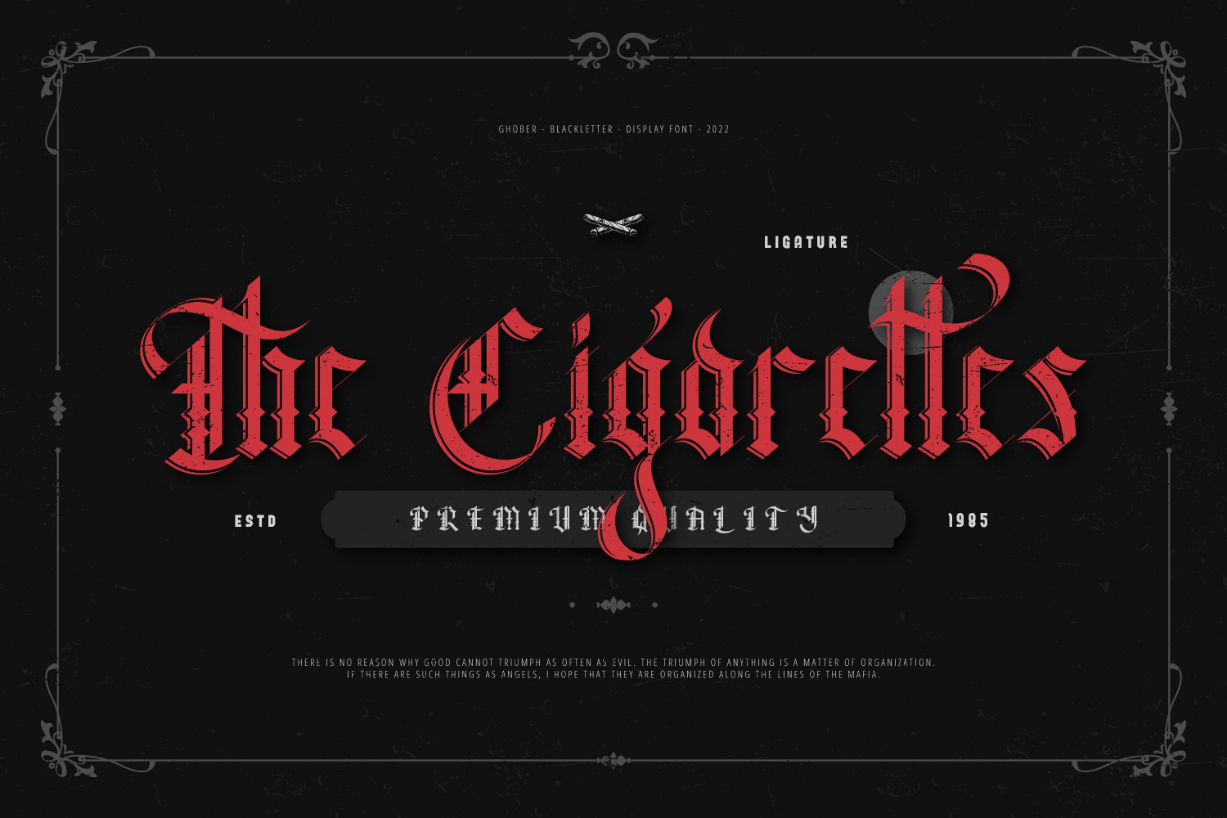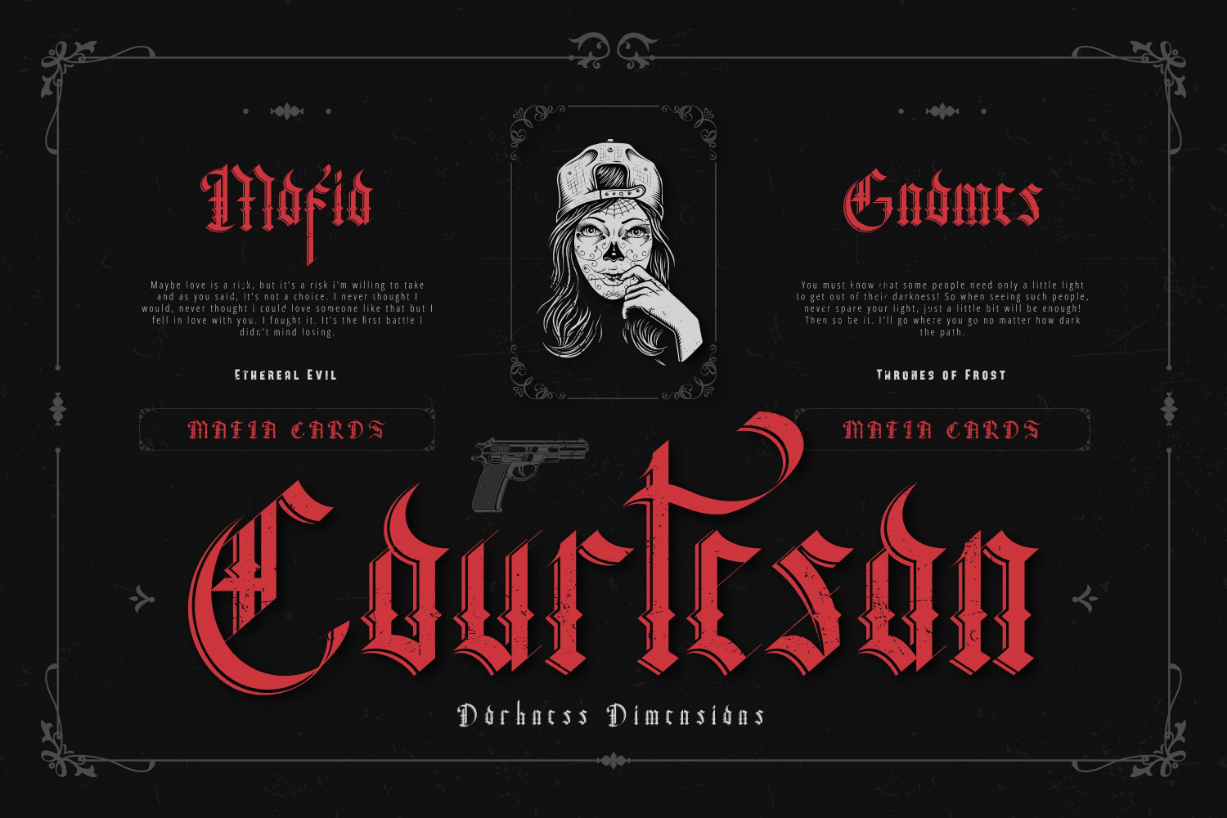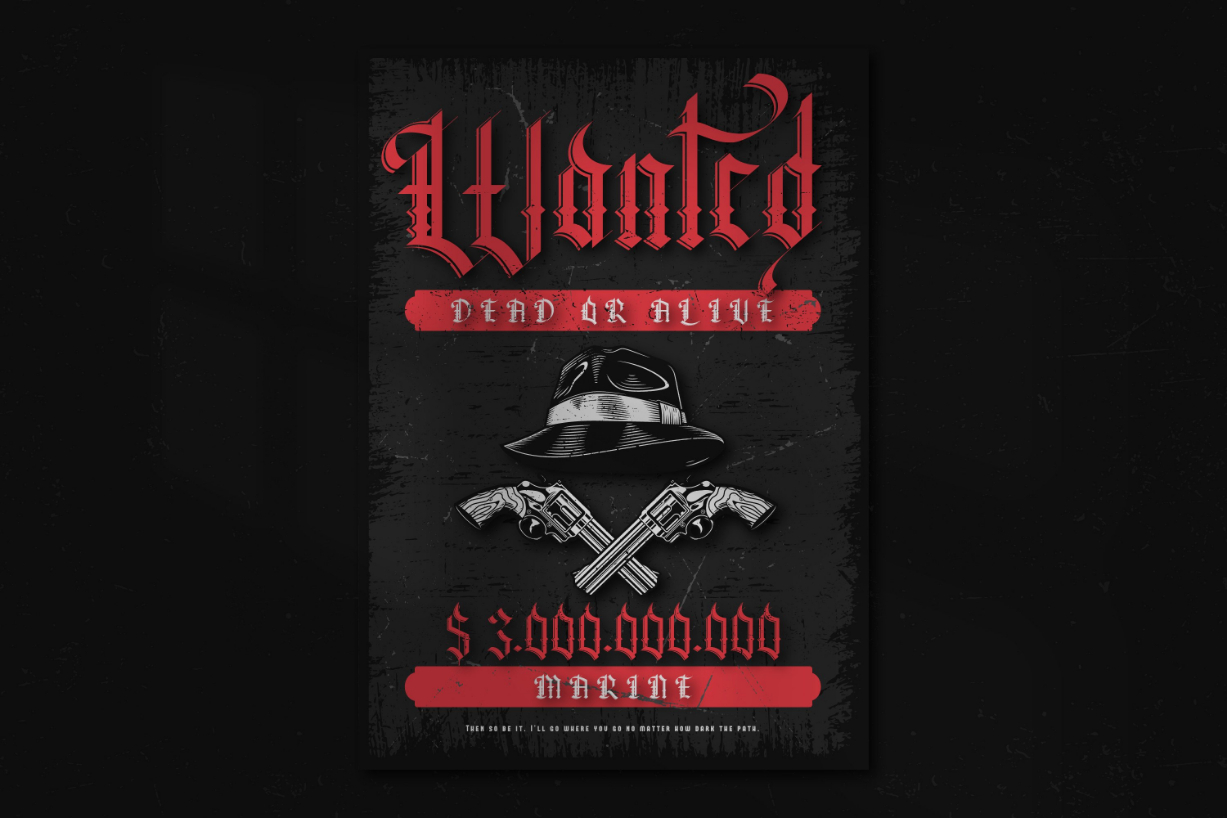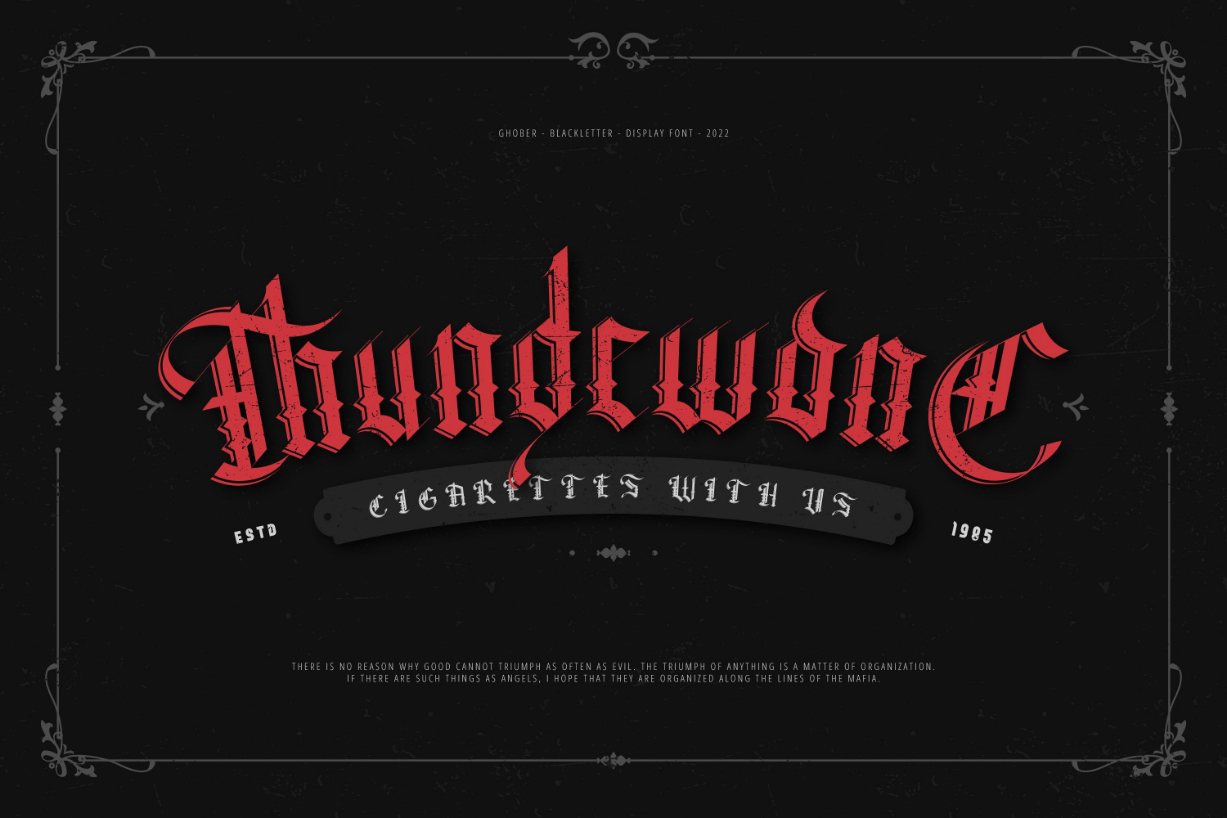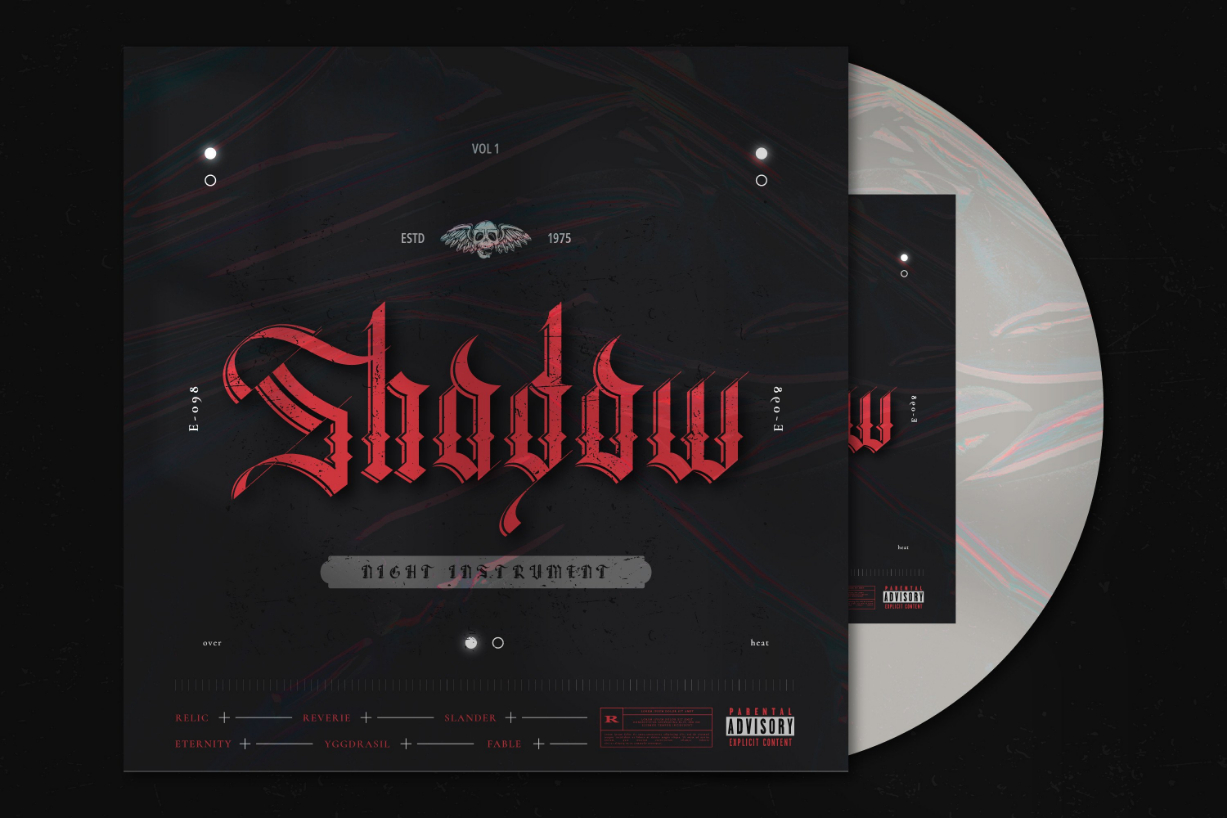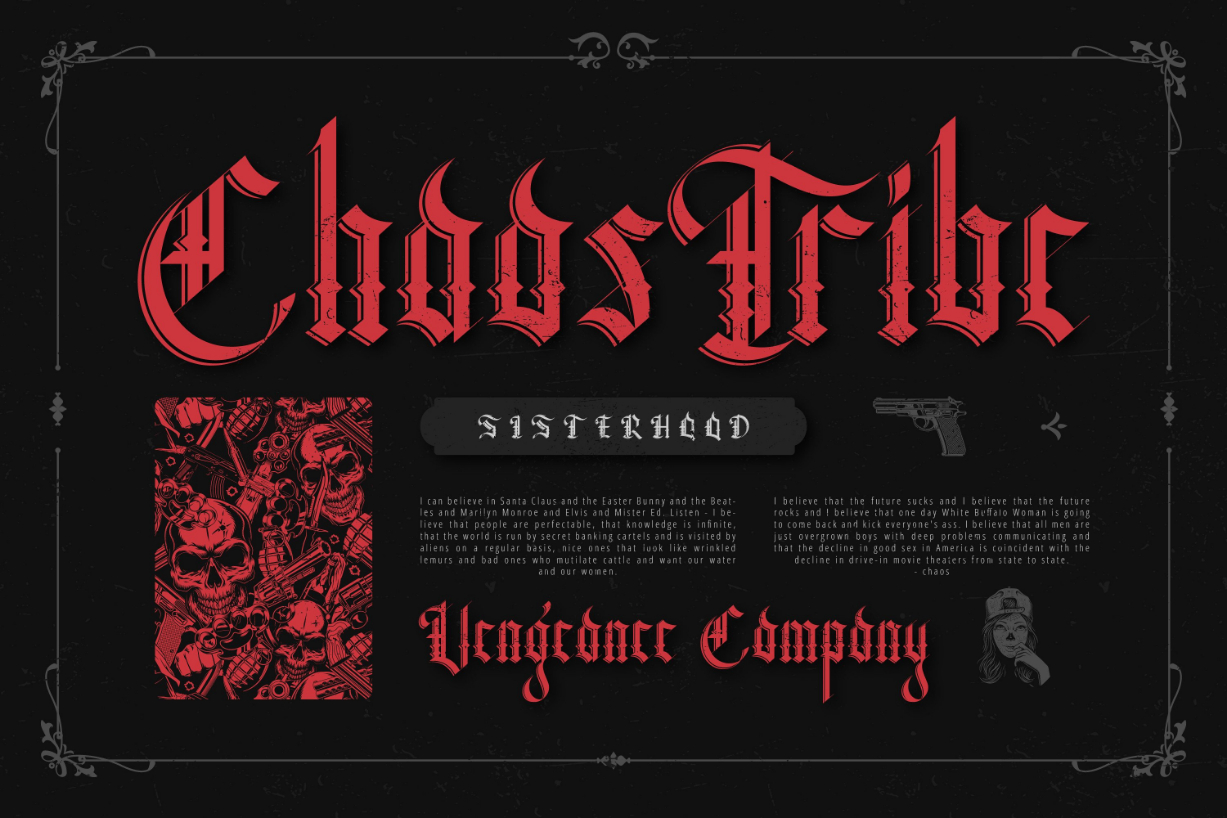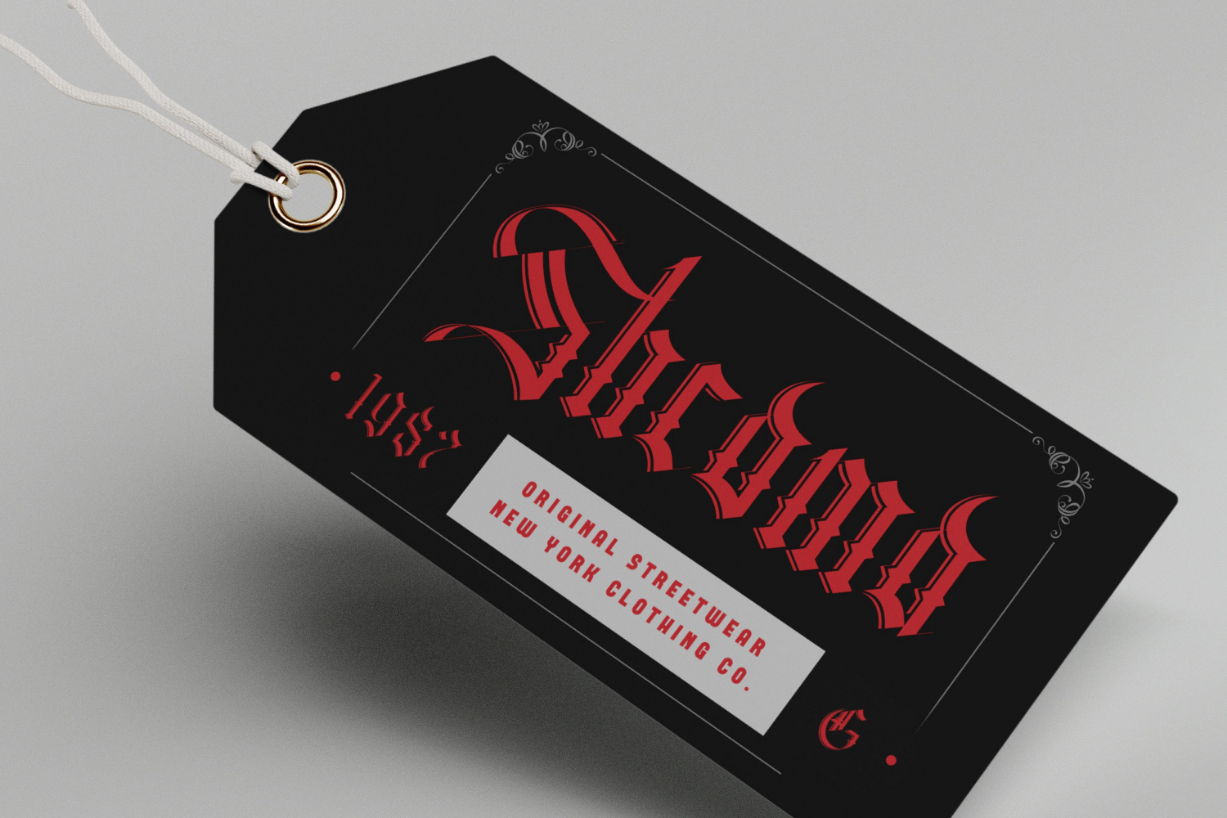
Ghober Font
About Ghober Font
Ghober is a splendid blackletter font that will impress with its stylish features. Use it for product packaging, branding, or other projects that need bold and daring typography!